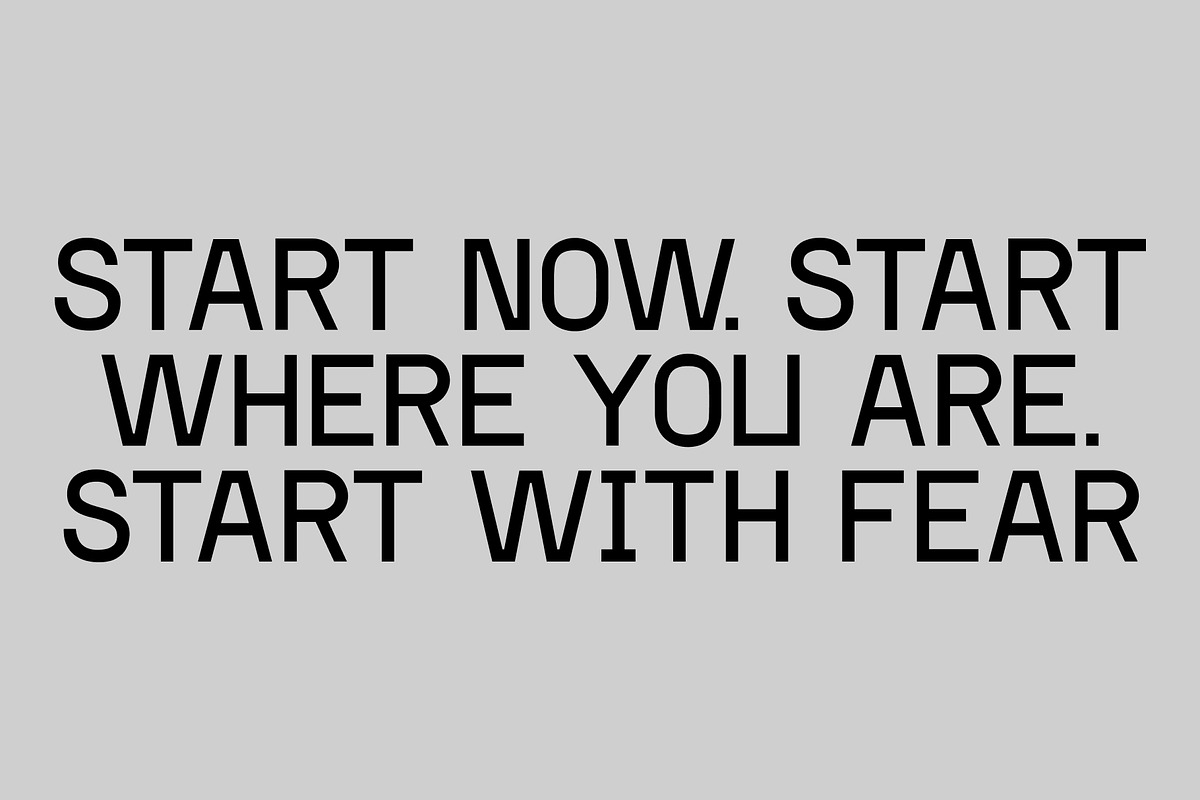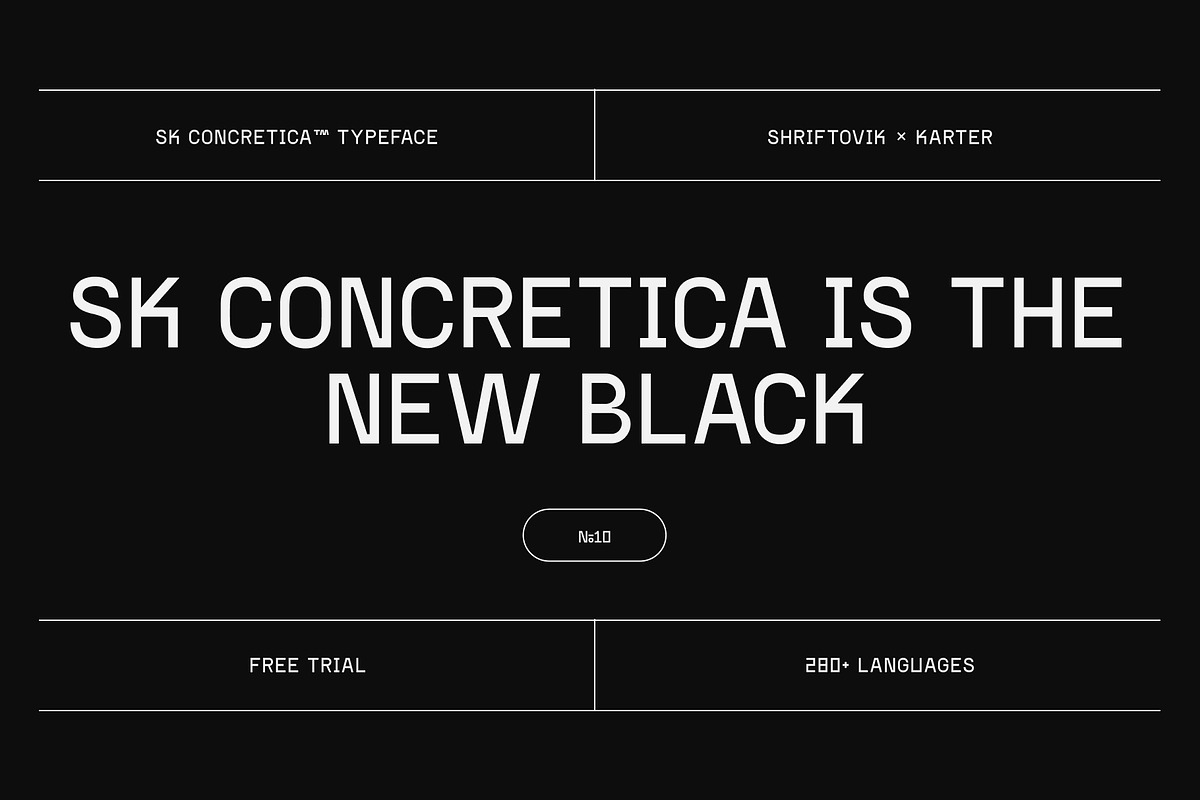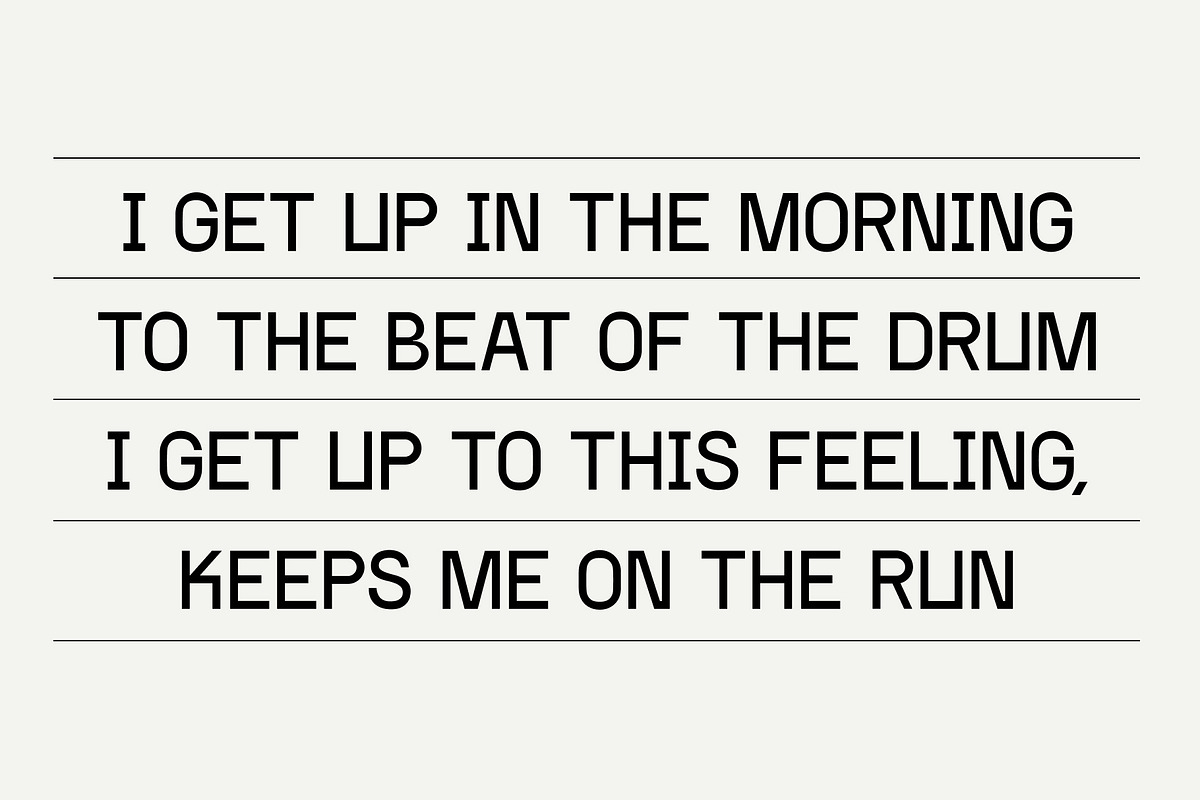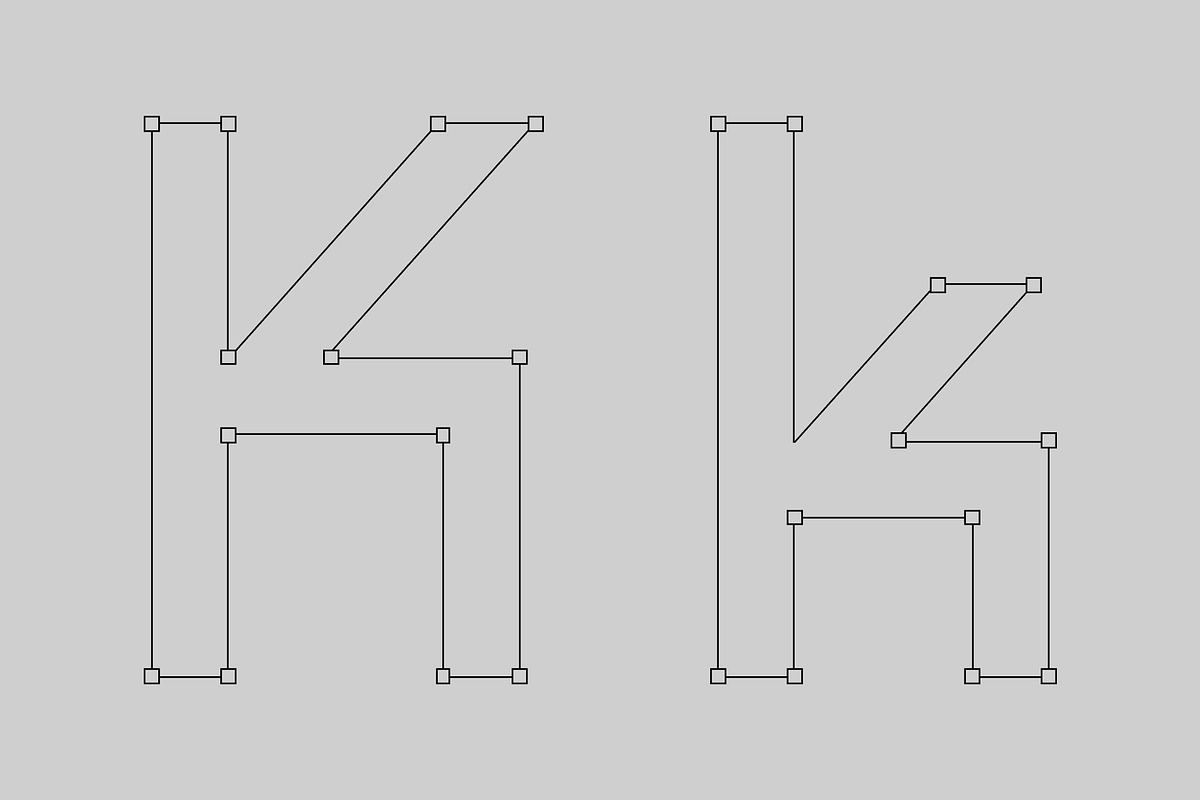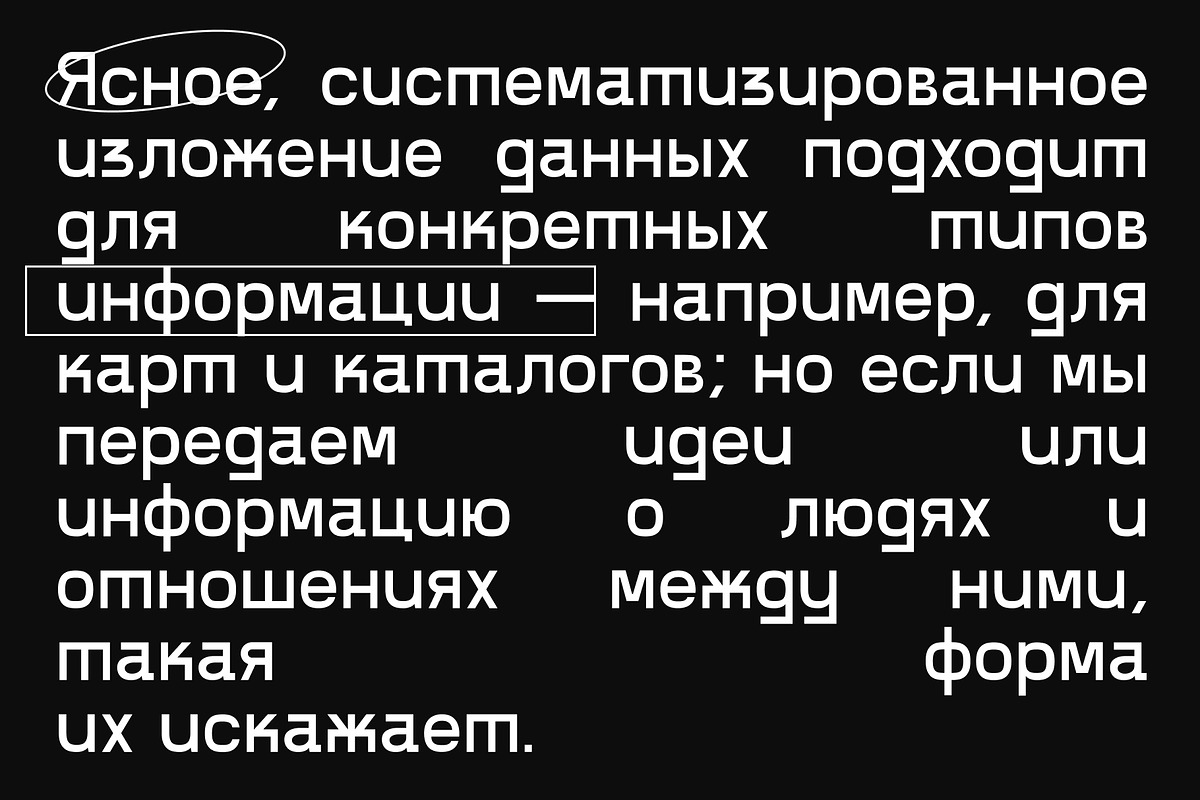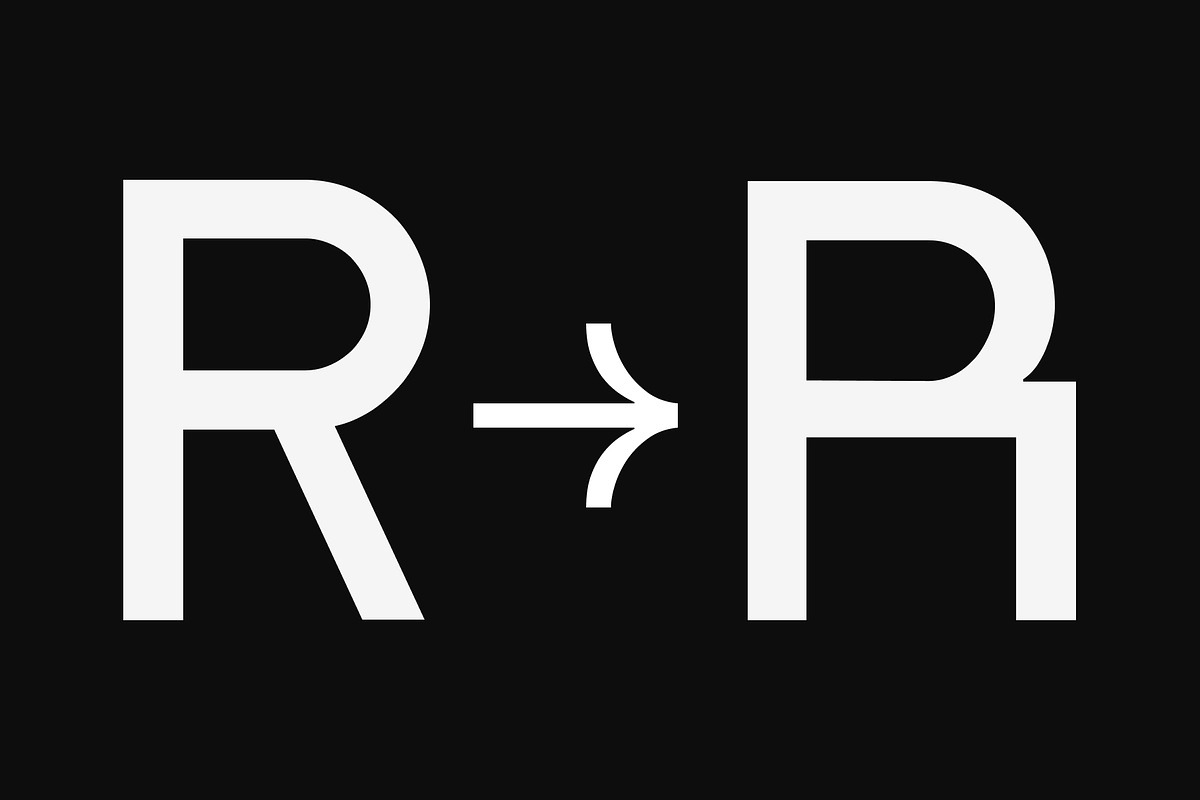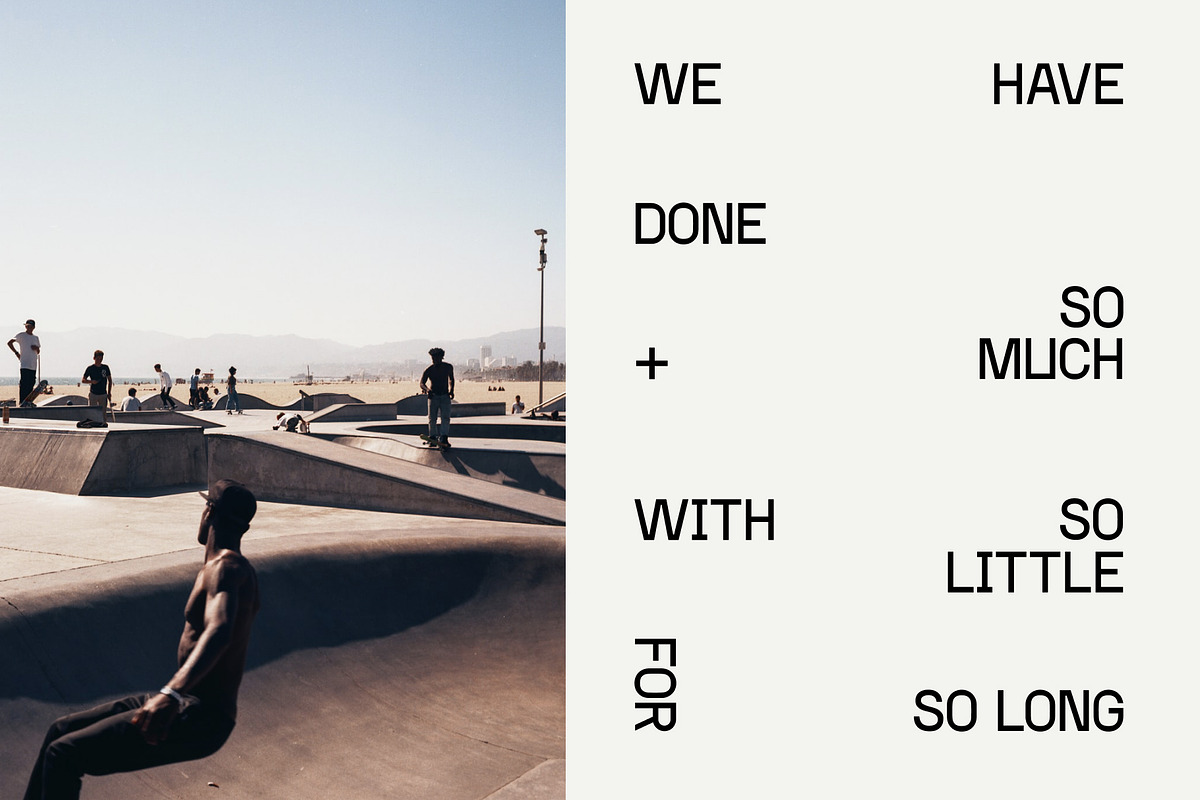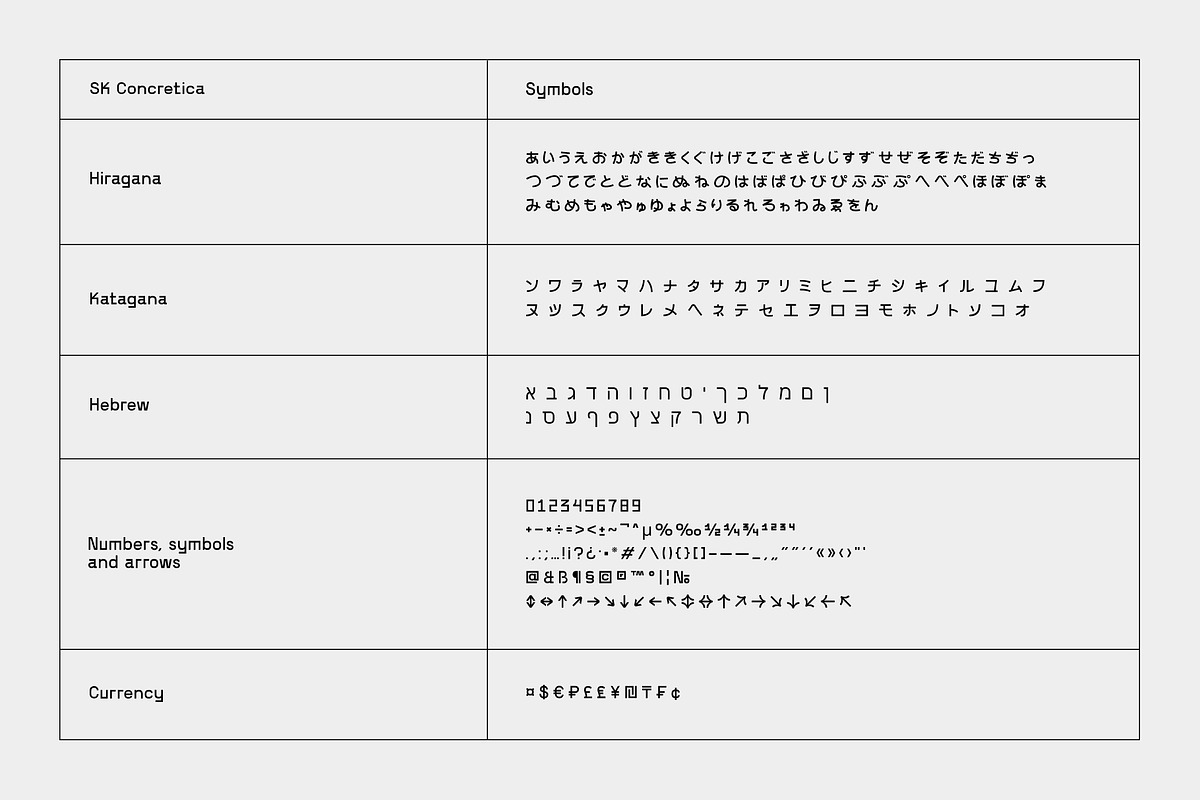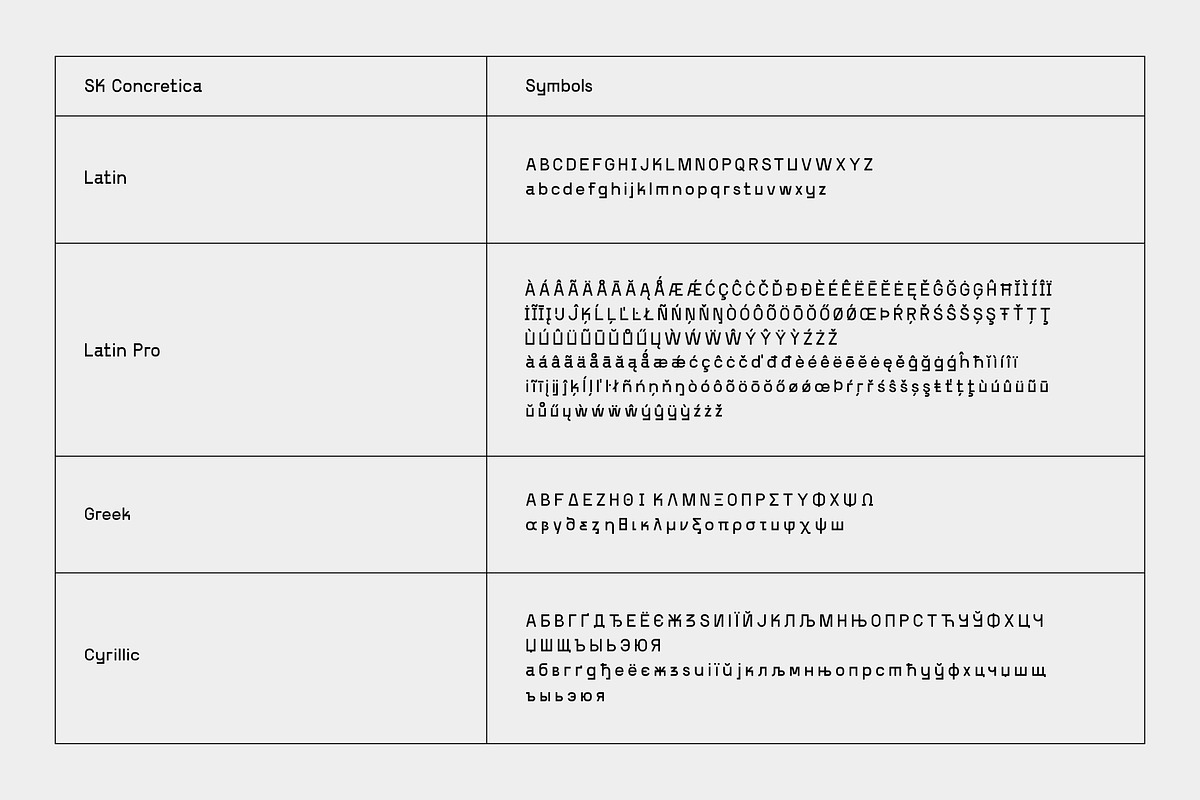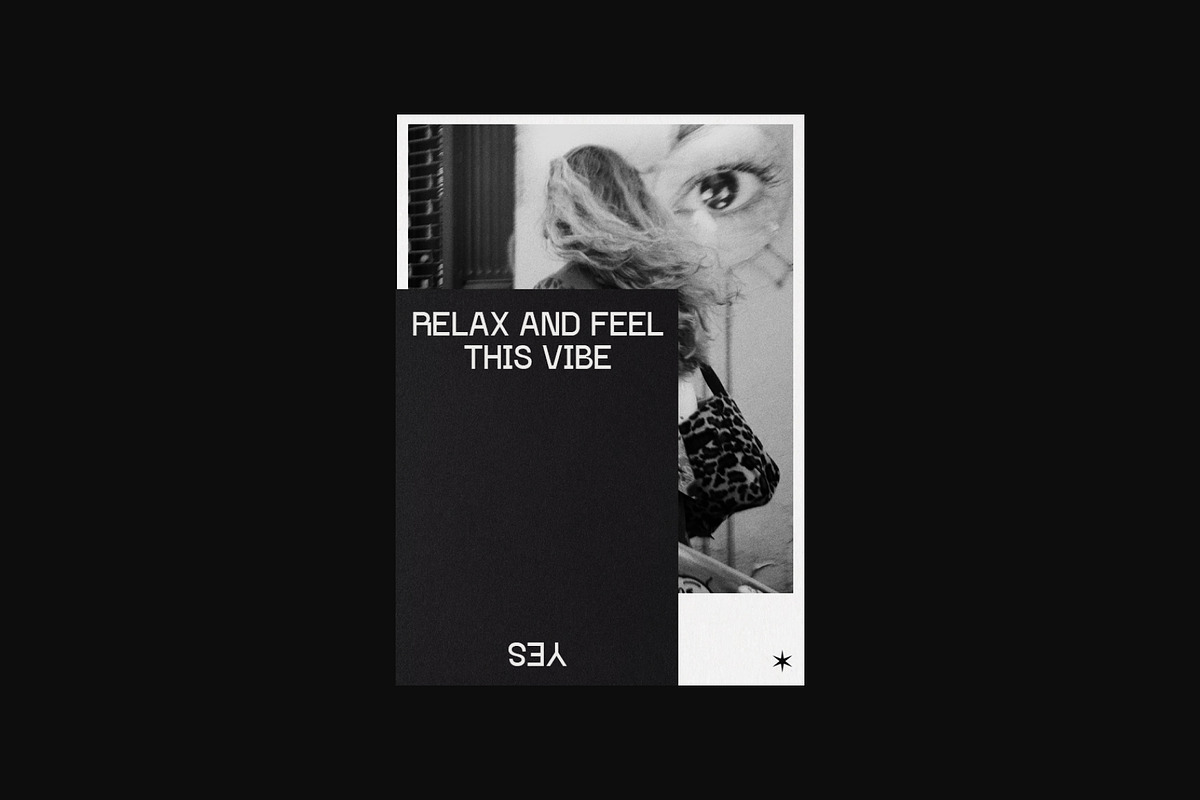
SK Concretica — Modern Grotesk
SK Concretica is our first experimental typeface for typing and text arrays. The font is inspired by the works of great masters of type design, such as Adrian Frutiger, Eric Spickerman, Claude Garamon and others. The typeface permeates the spirit of modernism and monumentalism. Not for nothing is it called "Concretica". This typeface has everything you need for a graphic designer: a basic set of characters (Latin and Cyrillic), additional multilingual character sets (Greek, Hebrew, Hiragana, Katakana), extended basic character sets (Latin Pro, Cyrillic Pro), alternative styles for both letters and signs, arrows (basic and alternative set), and much more. The typeface is worked out to the smallest detail, and the signs of the classic type design are reinterpreted and based on geometry and modernism. The SK Concretica typeface will look great both in the headings and in the text and will be a functional addition to the design work.